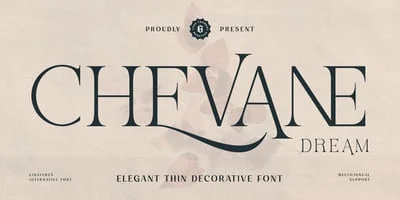
Chevane Dream Font
Chevane Dream Font is ideal for luxury fashion magazines, ethereal spa branding, dreamy wedding planning services, upscale beauty salons, sophisticated lifestyle blogs, elegant romance novels, premium fragrance packaging, and aspirational lifestyle campaigns. This enchanting typeface brings ethereal beauty and dreamy sophistication to any design project celebrating elegance, fantasy, and the pursuit of life's most beautiful moments.
What makes Chevane Dream Font exciting is its perfect capture of ethereal elegance combined with romantic sophistication that embodies the essence of dreams, aspirations, and the magical moments that make life extraordinary. The graceful letterforms feature flowing curves and dreamy proportions that create an unmistakably enchanting appearance. Each character floats with celestial grace, making it perfect for brands that inspire dreams, celebrate beauty, and transport audiences to worlds where elegance and fantasy intertwine in perfect harmony.
The Chevane Dream Font family typically includes regular and italic weights with complete uppercase and lowercase letters, numbers, punctuation marks, and dreamy special characters. Many versions feature additional ethereal decorative elements, romantic flourishes, and fantasy-inspired symbols that enhance the dreamy aesthetic and provide creative flexibility for luxury and aspirational design applications.
Whether you're developing luxury lifestyle brands or creating aspirational marketing materials, Chevane Dream Font offers unlimited potential for dream-inspired projects. This enchanting typography choice transforms ordinary text into magical experiences that resonate with audiences seeking beauty, elegance, and life's most extraordinary moments. The font's dreamy nature ensures exceptional appeal across various luxury applications while maintaining its distinctive ethereal character that makes every design project feel like a beautiful dream where sophistication and fantasy create unforgettable moments of pure elegance.